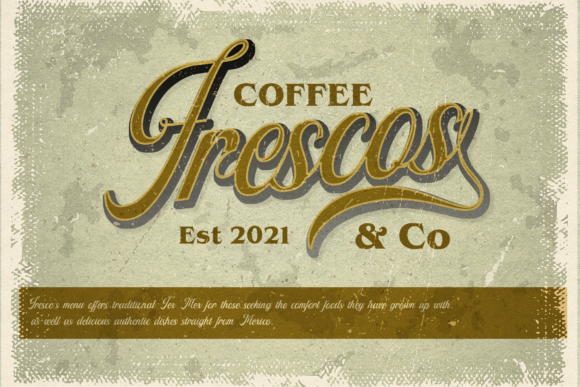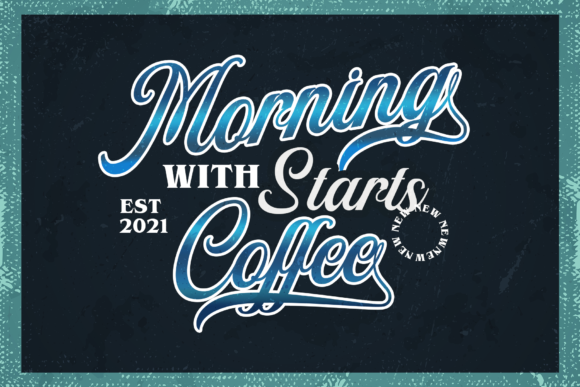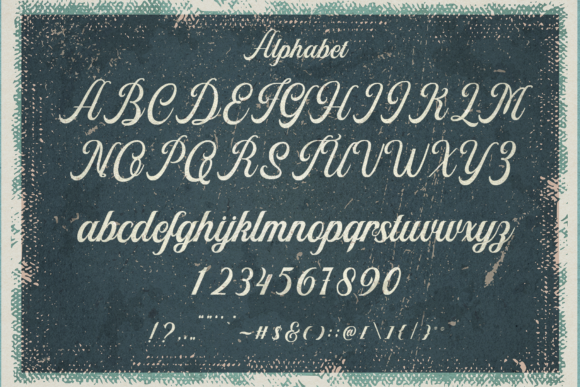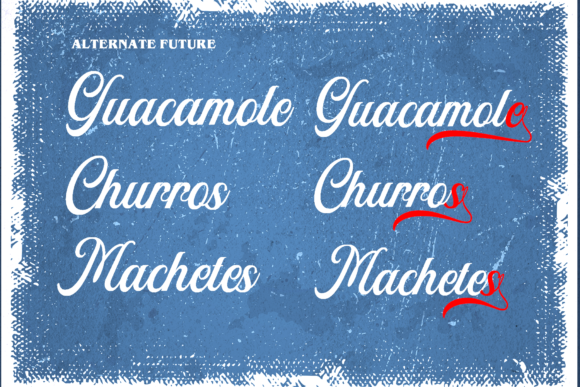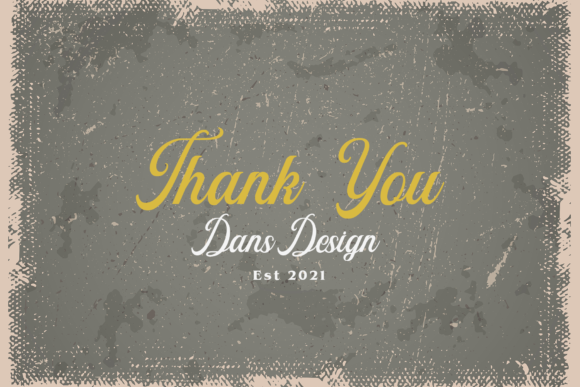
Introduction to Silvatos Font
As a designer, there’s nothing quite like the thrill of bringing a creative project to life. Whether it’s a bold campaign for a new product launch or a beautiful brand identity for a startup, the right typography can make all the difference. And that’s exactly why we’re excited to introduce you to the Silvatos Font – a gorgeous and bold handwritten font that’s sure to elevate your designs and leave a lasting impression.
With its high-quality design and dynamic feel, the Silvatos Font is the perfect addition to any creative project. Whether you’re looking to add a touch of nostalgia to your designs or simply want to stand out from the crowd, this font is sure to deliver. Plus, with a transparent background and free download available, it’s a valuable resource that’s easy to incorporate into your workflow.
Key Features of Silvatos Font
- Unique, elegant font style with a transparent background, ideal for modern designs.
- Supports a wide range of languages, making it a versatile design resource for international projects.
- Designed to be highly legible and visually appealing, with a unique blend of modern and classic elements.
Honest Review: Silvatos Font
I recently had the chance to work with the Silvatos Font, and I must say it’s been a great addition to my design resources. This high-quality font is perfect for creative projects that require a unique touch.
What works well: ✨ The Silvatos Font has a beautiful, elegant design that makes it perfect for headings and titles. The transparent background makes it easy to place over images or other design elements. The font is also highly customizable, allowing you to adjust the size, color, and style to fit your project’s needs.
What doesn’t work well: ⚠️ While the Silvatos Font is a great addition to any design resource, it’s not suitable for large blocks of text. The font’s elegant design can make it difficult to read when used in large quantities.
Overall, I’m really impressed with the Silvatos Font. It’s a great design resource that adds a unique touch to any project. If you’re looking for a high-quality font for your creative project, I highly recommend giving the Silvatos Font a try.
Tips for Getting the Most Out of Silvatos Font
Experiment with different font sizes and styles to create a visually appealing design. Use the Silvatos Font in conjunction with other design elements to add depth and texture to your project.
Common Use Cases for Silvatos Font
The Silvatos Font is ideal for various creative projects, including graphic designs, presentations, and documents. Its transparent background makes it suitable for overlaying text on images, creating a unique and eye-catching design.